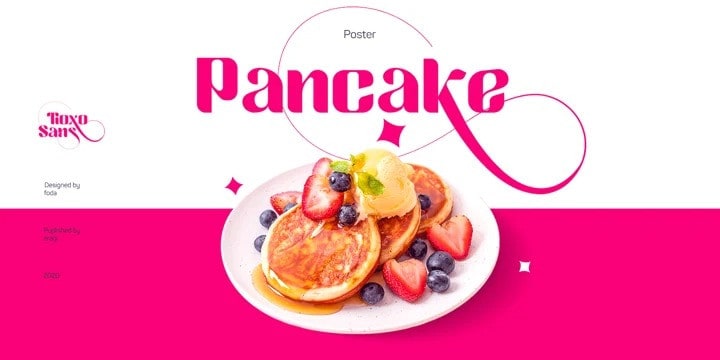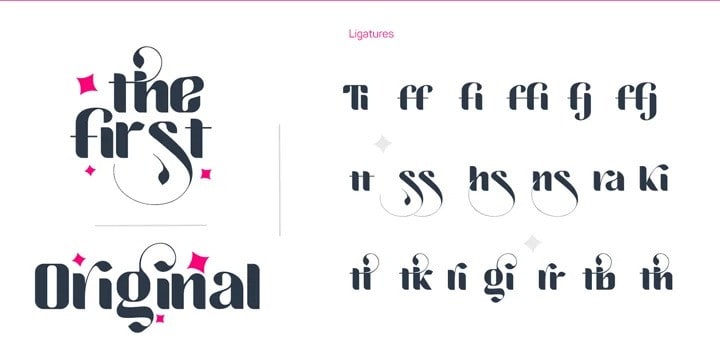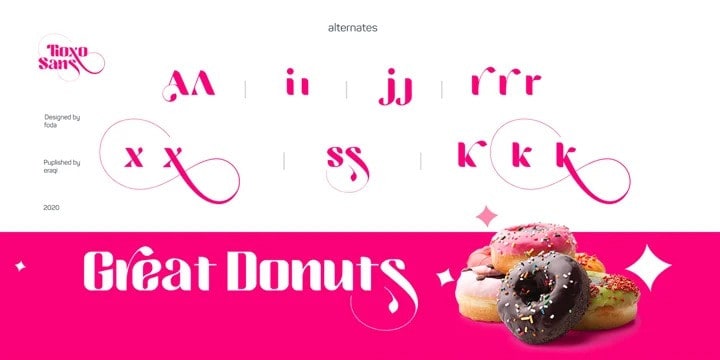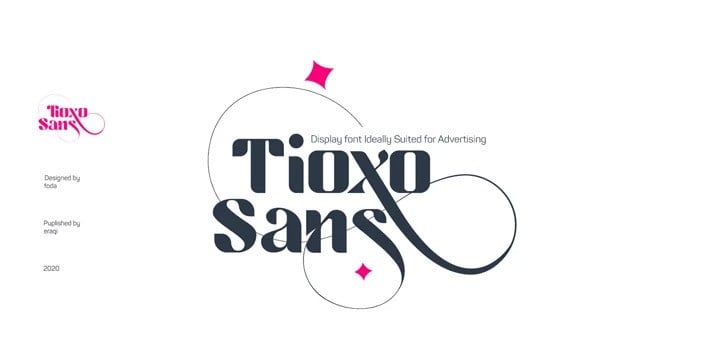
Tioxo Sans Serif Font is a Bold elegant modern vintage with upper and lowercase feel nice balanced curves. Tioxo Sans is designed and shared by Fo Da. This font is a display font of a single weight, ideally suited for advertising and packaging, festive occasions, editorial and publishing, creative industries and posters .